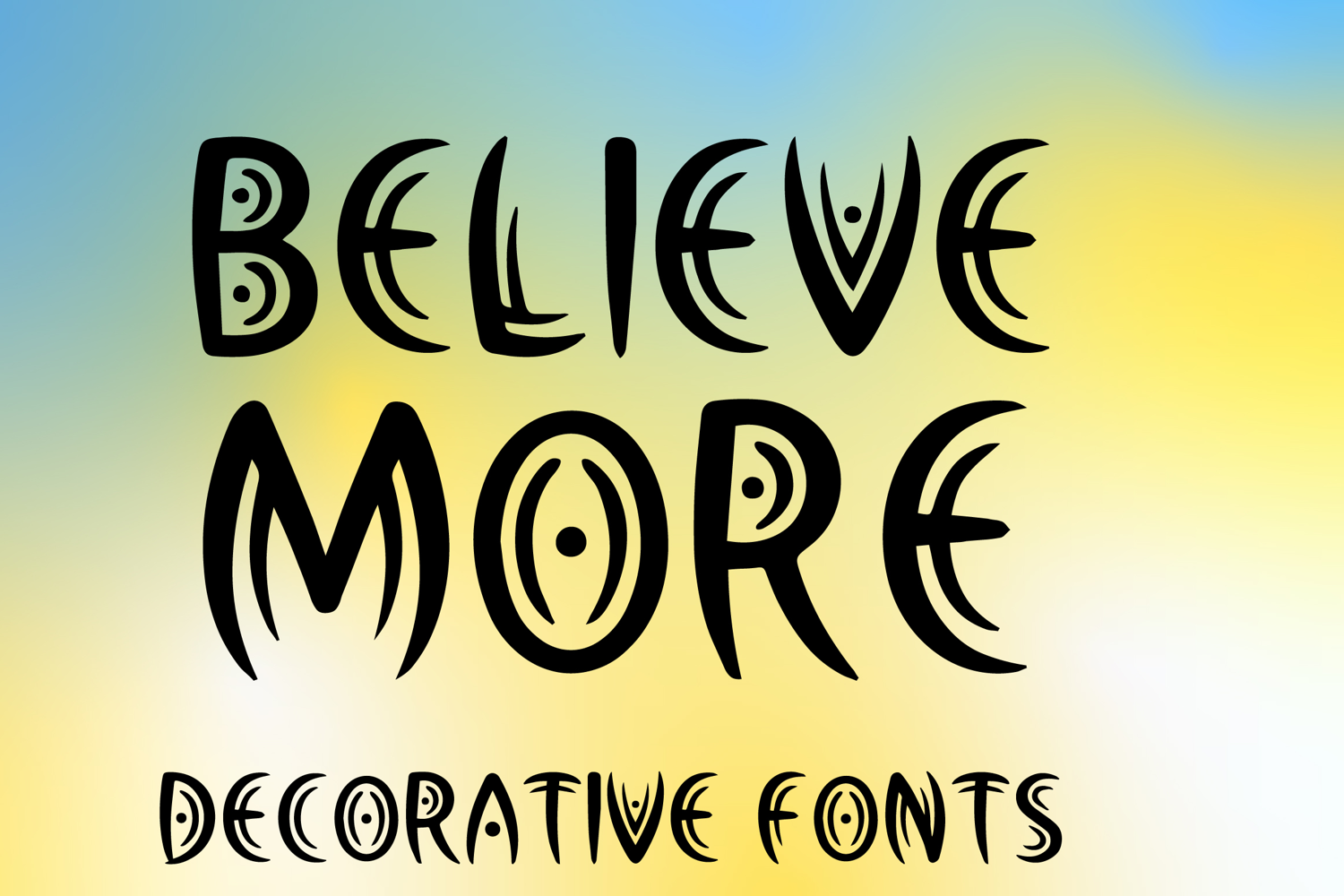
BELIEVE MORE
BELIEVEMORE-Regular
BELIEVE MORE is a bold decorative display font with a unique tribal-inspired style and expressive artistic charm. Its uppercase letterforms feature elongated curves, oval cutout details, and striking symmetrical shapes that create a dramatic, creative, and eye-catching look. Designed with uppercase letters A–Z and numbers 0–9, BELIEVE MORE is perfect for branding, posters, packaging, book covers, logos, and creative projects that need a bold and unforgettable statement.